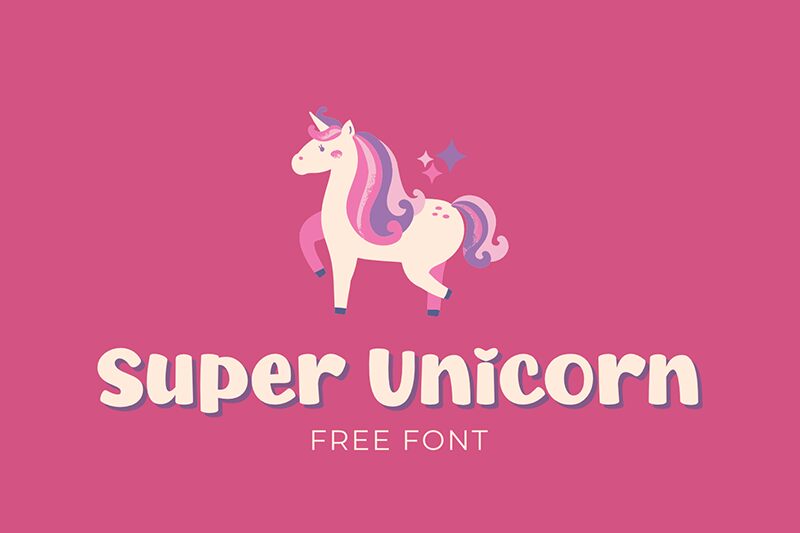
Super Unicorn font by fsuarez913 is a playful and fun display typeface with a modern twist. The cartoon style gives it an extra friendly feel that invites readers in while boldly stating the core message of each project. Use this inviting professional resource which is made available for free download; use it in projects like websites, posters, magazines, and more.
The casual tone of this modern font makes is suitable for multiple design ideas. This includes children’s books, comics, posters for kids and adults alike, video commercials and ads among other designs. Other options: labels, logos and branding ideas, product packaging such as jump rope or condoms wrapping.
Super Unicorn